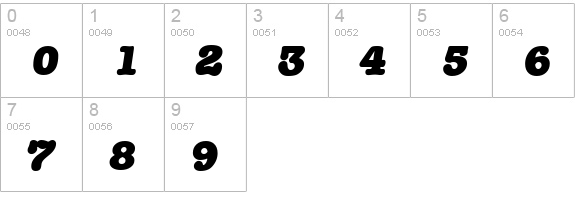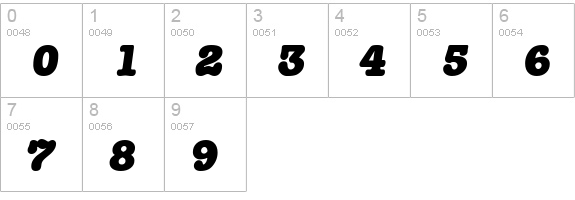
TypewriterSerial-Heavy-Italic is a heavy, high-impact, italic variant in the TypewriterSerial typeface family \xE2\x80\x94 well suited to high-impact headlines, posters, and display advertising.
Introducing TypewriterSerial-Heavy-Italic font, a bold and distinctive typeface that exudes a sense of vintage charm and mechanical precision. With its heavy weight and slanted italic styling, this font is perfect for adding a touch of drama and personality to your designs. But the best part? TypewriterSerial-Heavy-Italic font is available for free download at FontsMarket.com! That's right, you can easily access this unique and eye-catching font to use in your projects without any cost. Embrace the retro vibes and make a statement with TypewriterSerial-Heavy-Italic font today.